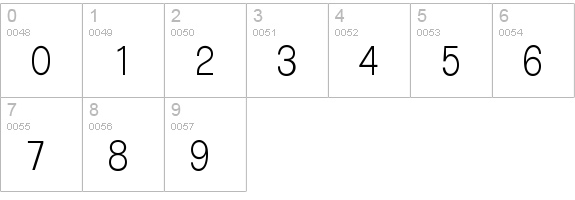
Formula-Light is a refined, elegant variant in the Formula typeface family \xE2\x80\x94 well suited to elegant body text, refined sub-headings, and luxury branding.
Formula-Light is a sleek and modern font that exudes elegance and sophistication. With its clean lines and minimalist design, this font is perfect for a wide range of design projects, from branding to editorial layouts. The light weight of the font adds a touch of subtlety and refinement, making it a versatile choice for both digital and print applications. What's even better is that Formula-Light is available for free download at FontsMarket.com. Whether you're a designer looking to add a touch of class to your projects or a business owner in need of a professional font for your branding, Formula-Light is the perfect choice. Don't miss out on this opportunity to elevate your designs with this stylish and contemporary font. Download Formula-Light today and take your projects to the next level!